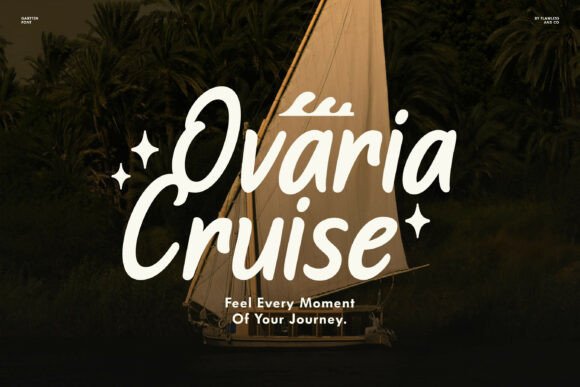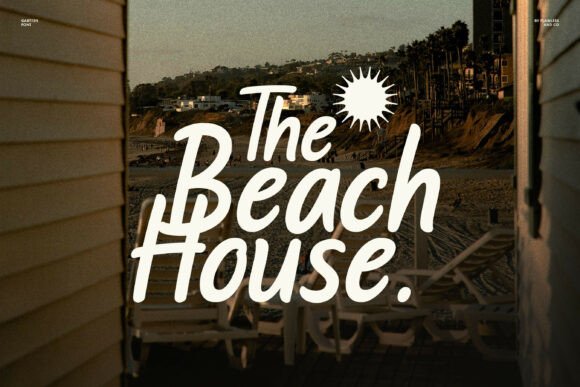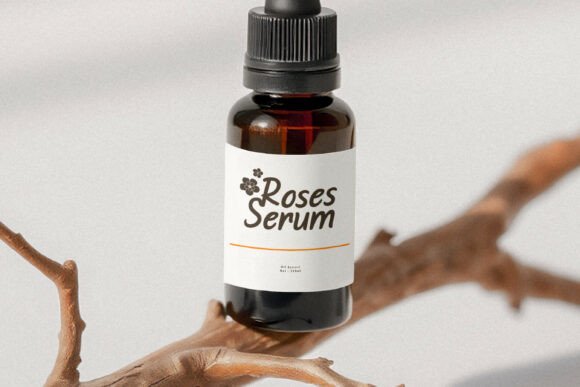
Introduction to Gartten Font
Make a statement that sticks with the Gartten font, a masterclass in modern, high-impact lettering.
This Gartten typeface is defined by its thick, confident strokes and a stylishly rugged silhouette that demands attention without losing its approachable, human touch The Gartten font bridges the gap between casual marker sketches and professional graphic design, making it the ultimate tool for bold headlines, streetwear branding, and high-energy social media layouts.
Why Choose Gartten Font?